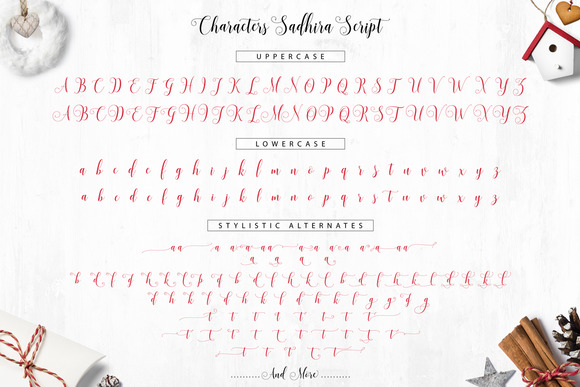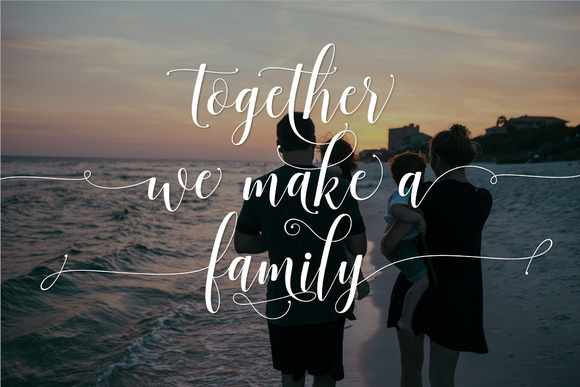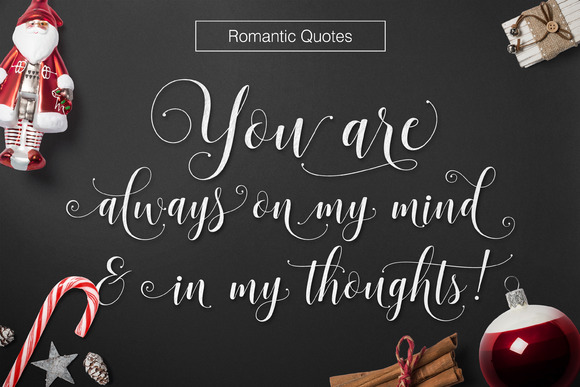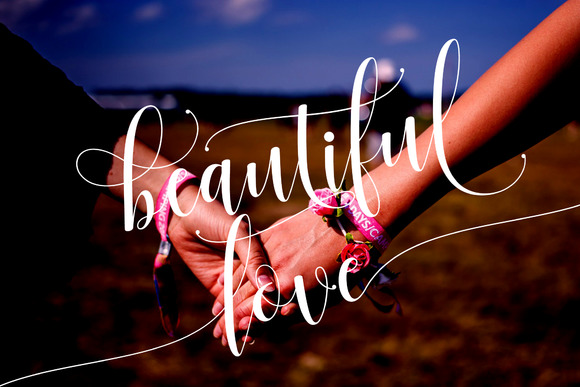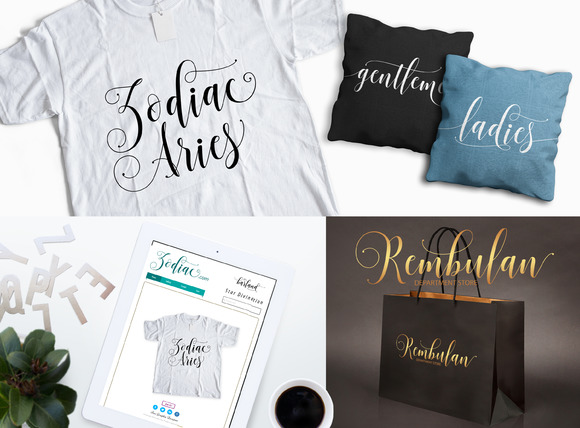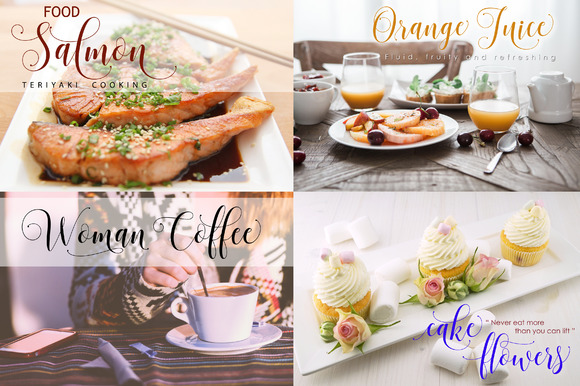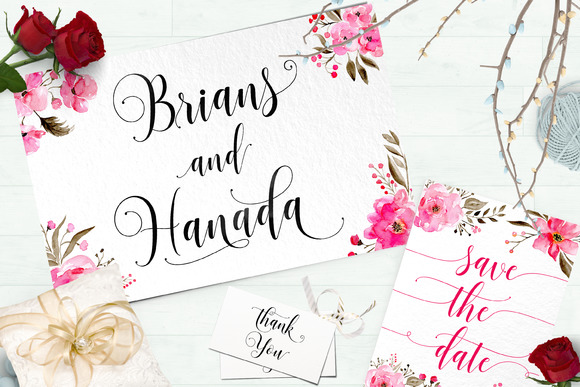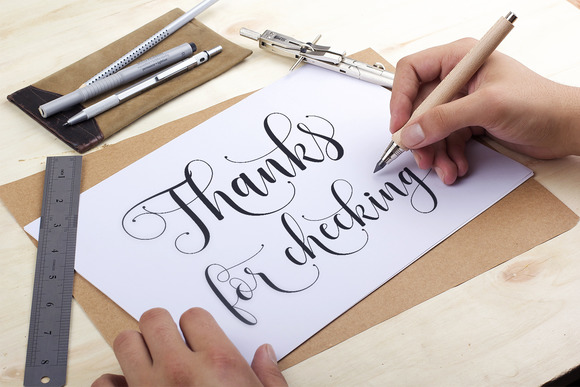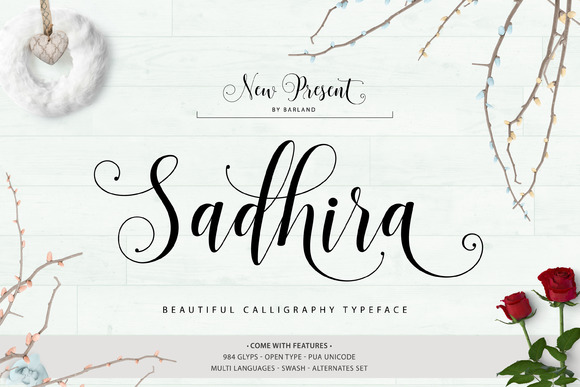
Sadhira – Calligraphy Typeface
Sadhira Script Calligraphy Typeface is modern script font, every single letters have been carefully crafted to make your text looks beautiful. With modern script style this font will perfect for many different project, example: weddings, invitations, greeting cards, posters, name card, quotes, blog header, branding, logo, fashion, apparel, letter, stationery, etc.
Sadhira Script Calligraphy Typeface including alternate glyph and beautiful swirl in a font including stylistic sets, Ligatures etc. The Open Type features can be accessed by using Open Type savvy programs such as Adobe Illustrator CS, Adobe Indesign & CorelDraw X6-X7 and Microsoft Word. And this Font has given PUA unicode (specially coded fonts). so that all the alternate characters can easily be accessed in full by a craftsman or designer.